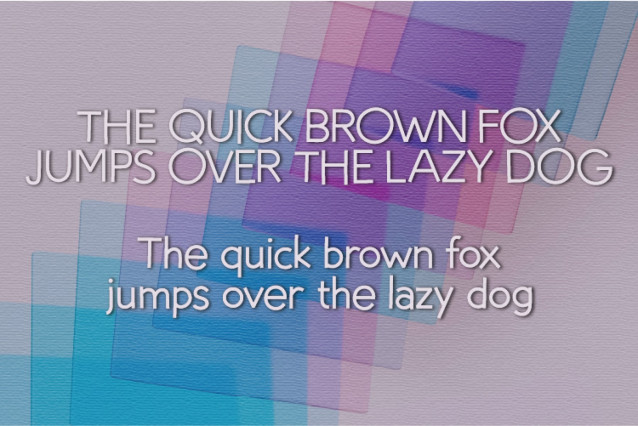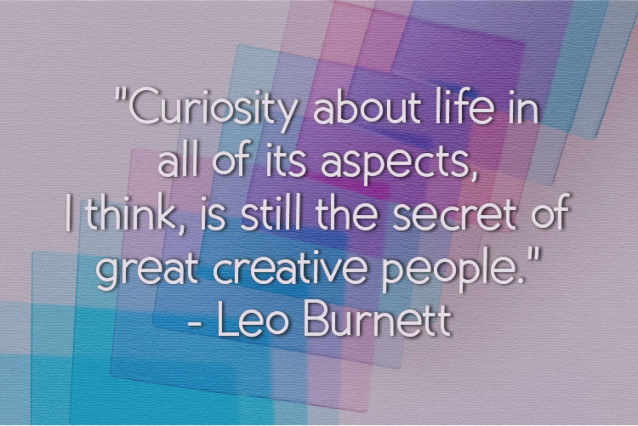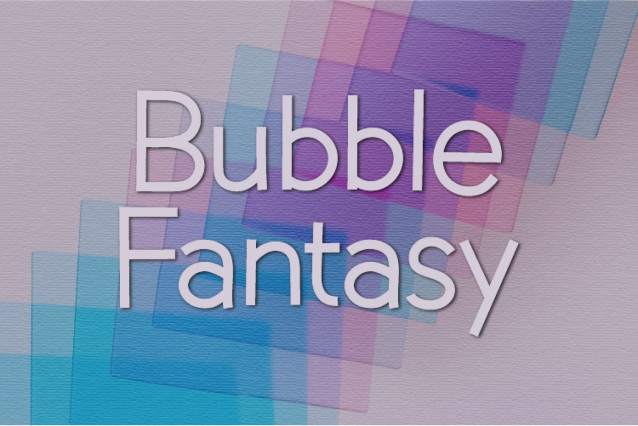
Bubble Fantasy Font
Bubble Fantasy is a neat and friendly handwritten font. This font was particularly crafted for those who need a beautiful and refreshing look to their designs.